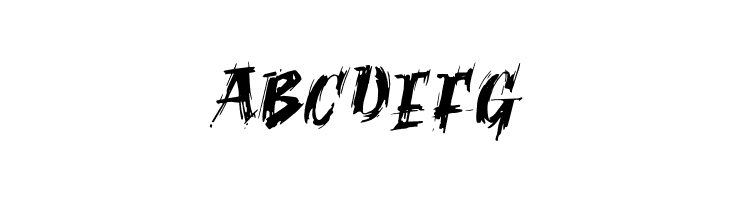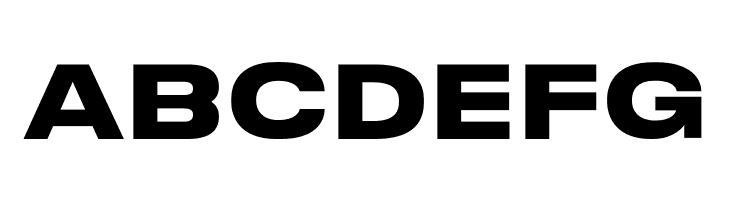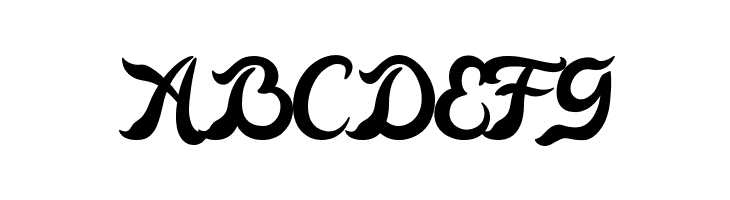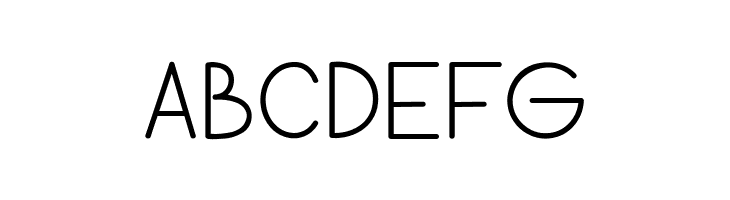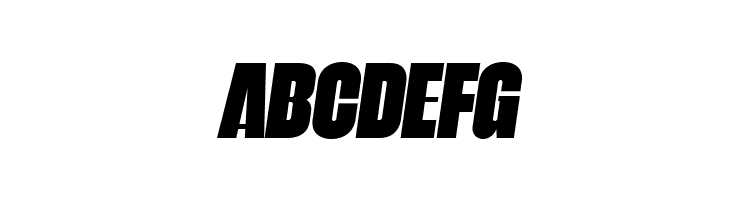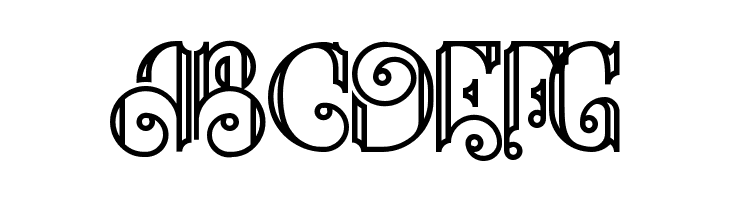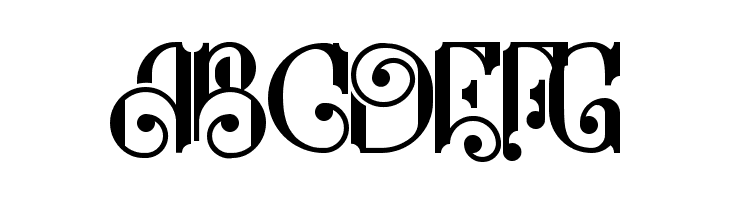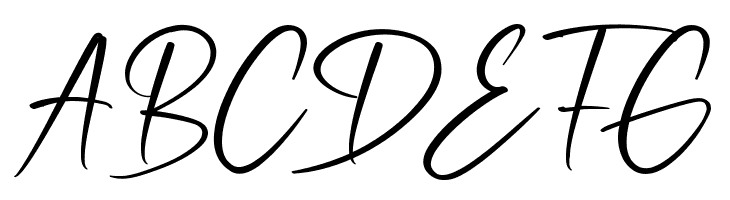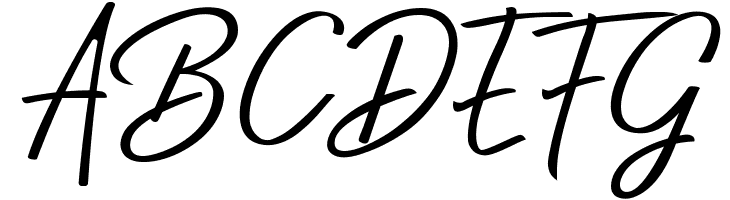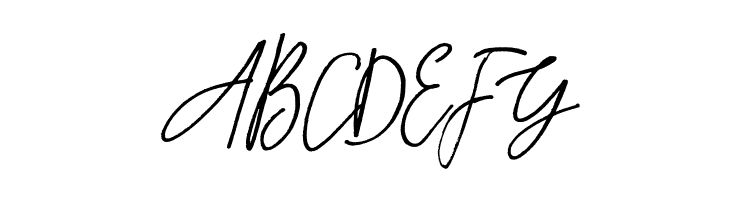
A bold, flowing script font with vintage elegance and high contrast.
A dynamic script font with flowing, interconnected letterforms and a modern, artistic style.
A bold, modern sans-serif font with geometric shapes and uniform spacing.
A dynamic, cursive script font with fluid strokes and a handwritten feel.
A playful and modern font with unique, artistic characters.
A bold, slanted font with a strong, modern presence.
A dynamic and fluid script font with elegant, handwritten characteristics.
A bold, decorative font with intricate flourishes and high contrast.
An ornate, decorative outline font with elegant swirls and loops.
A bold, energetic brush-style font with irregular, jagged strokes.